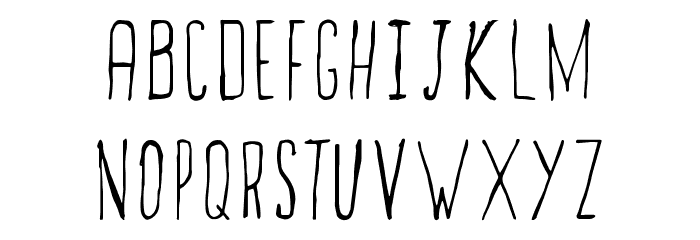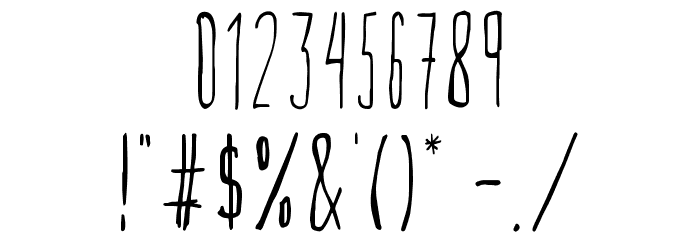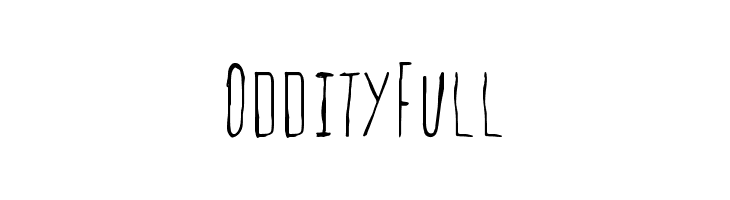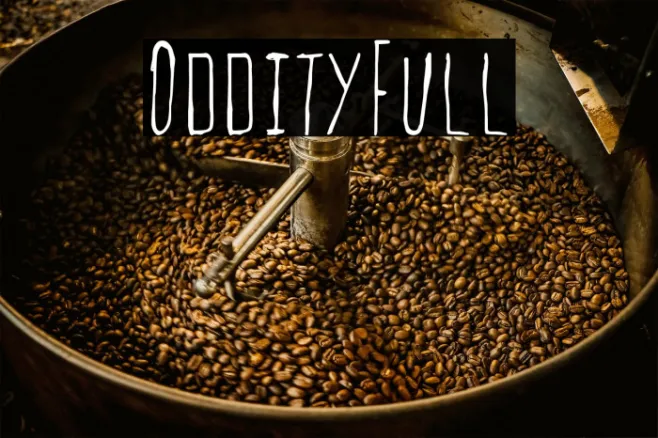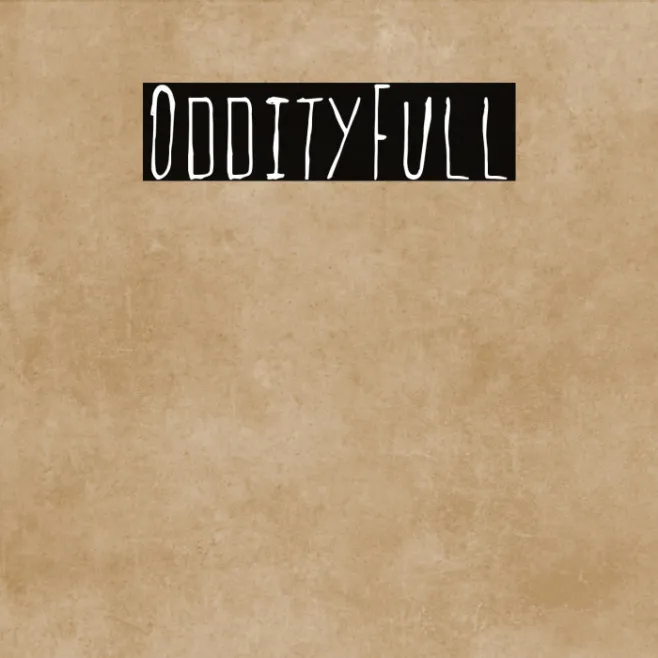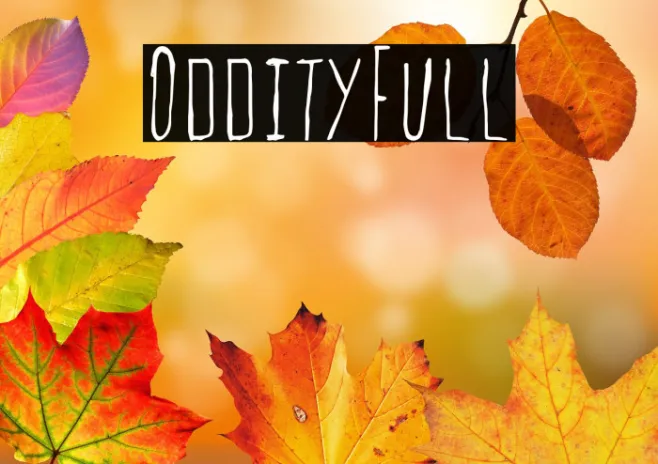
OddityFull Font
A quirky, handwritten font with irregular strokes and a playful appearance.
Handwritten, playful font with irregular strokes.
- Proposed Projects: Greeting cards, casual invitations, children's books.
- Category: Handwritten
- Overall Style: Casual, Playful
- Use Case: Headlines, Casual text